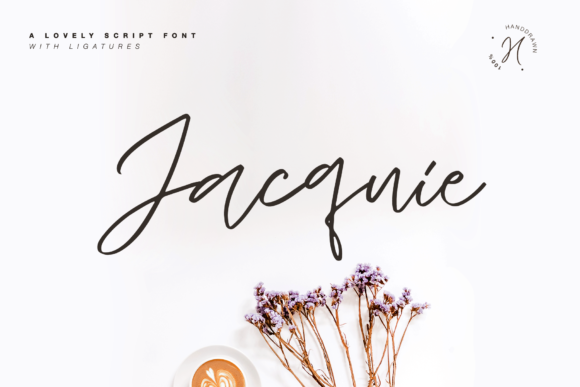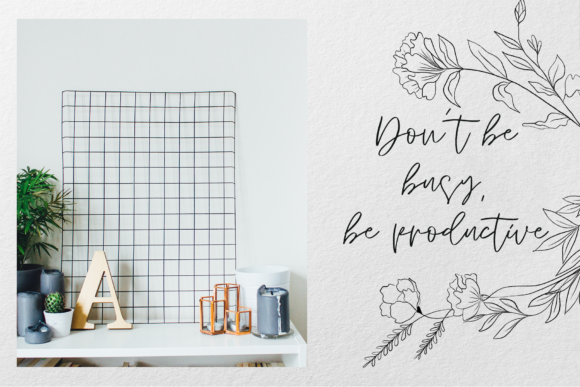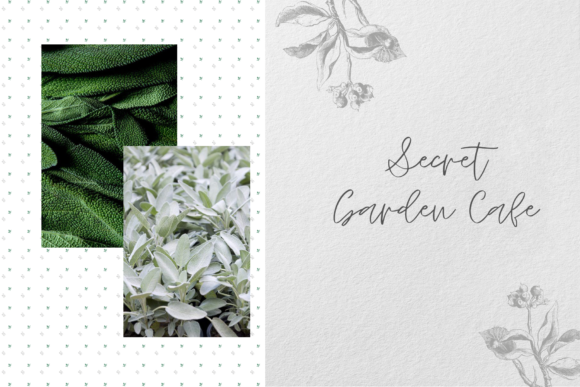
HomeScript FontsJacque Font Script Fonts Jacque Font FacebookXPinterestWhatsApp Jacque Font Poster 2 Jacque Font Poster 3 Jacque Font Poster 4 Jacque Font Poster 5 About Jacque Font Jacque is a hand-drawn script with a bold feel. Get inspired by its authentic letters! DOWNLOAD ON CREATIVE FABRICAThis font is sold and delivered by Creative Fabrica. Font Canyon may earn a commission if you buy through this link. People also explored Best Collections Font Articon Font Tinna Bell Font Sad Angel Font Better Winter Font Momy Noela Font Penuche Font Happy Day Font Hanaby Font 291 0 TagsJacque Font Previous articleLemonade Squash FontNext articleTahiti Sand Font LEAVE A REPLY Cancel reply Comment: Please enter your comment! Name:* Please enter your name here Email:* You have entered an incorrect email address! Please enter your email address here Website: Save my name, email, and website in this browser for the next time I comment. Personal Use Free Equestrain Personal Use Free Read more about this font Bashira Personal Use Free Read more about this font New Normal Personal Use Free Read more about this font BD Fluke Personal Use Free Read more about this font BLOG Modern Sans-Serif Fonts That Brands Love in 2025 In 2025, modern sans-serif fonts remain a top choice for brands looking to project clarity, professionalism, and... Elegant Wedding Invitation Fonts – Handwritten & Script Fonts Free Fonts Risk: Why Free Fonts Can Be Dangerous for Designers Using Fonts in Digital Marketing: Tips to Strengthen Your Brand Identity